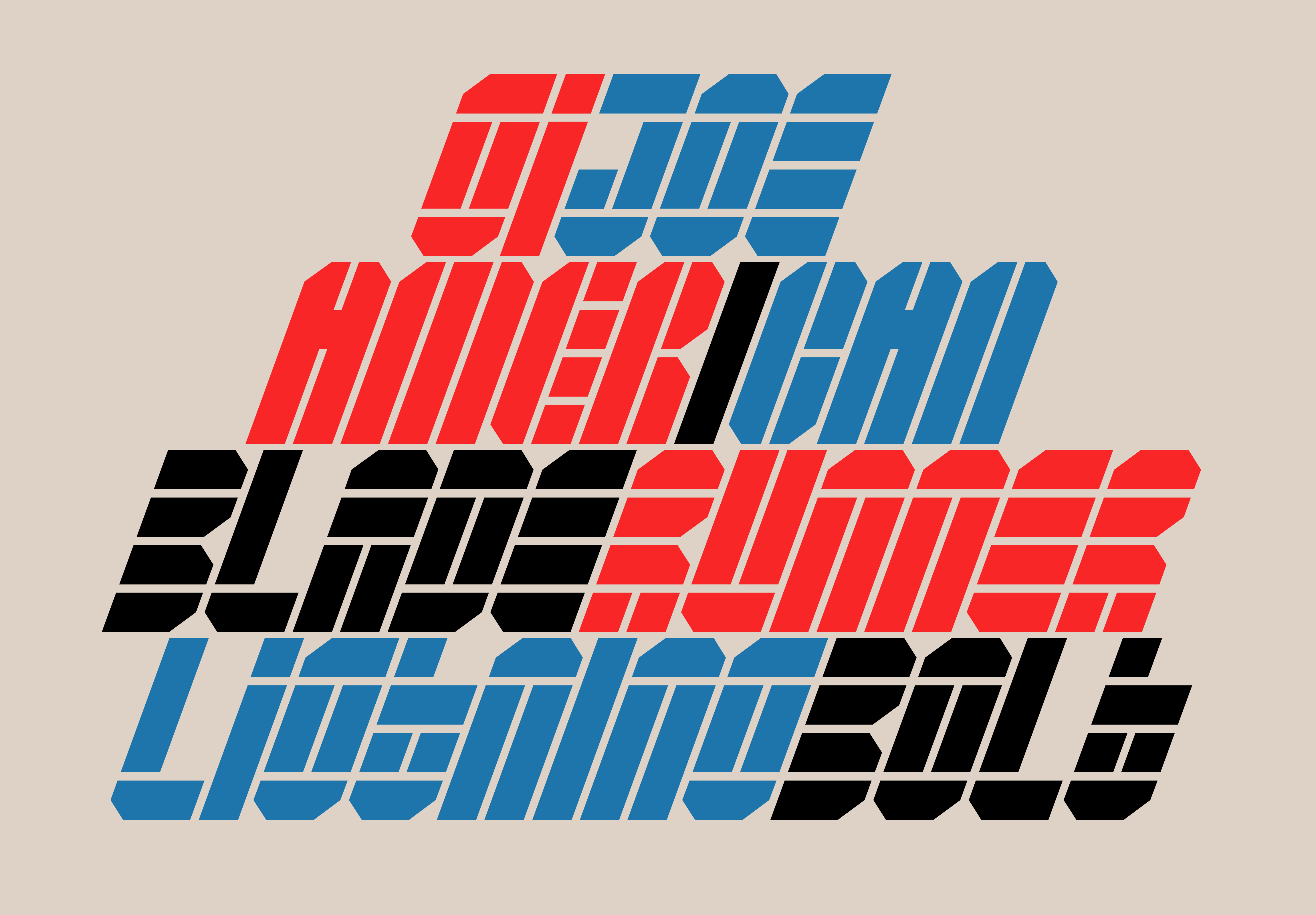
Name: Texel
Designer: Simon Bent/studio-io
Foundry: Metis Foundry
Release Date: December 2018
Back Story: Texel began life in Melbourne’s studio-io as a branding concept inspired by the solid forms of Brutalist buildings. This architectural vernacular came into being just after WWII and was seen by some as an honest, plainspoken style and by others as an offense to aesthetic sensibilities—hulking structures formed from raw slabs of cold concrete are not everyone’s cup of tea. The term Brutalism was coined by the British architectural critic Reyner Banham and originates from modernist architect Le Corbusier’s use of ‘beton brut’—raw concrete in French. Bent’s typographic exploration of harsh and unforgiving geometry resulted in a severely gridded, heavy-as-cement font that makes no excuses for its rough character.
Why’s it called Texel? The research for the initial branding project included visual investigations into various military fortifications. The low, squat structure of Battery Den Hoorn, a WWII observation bunker on Texel (an island off the Dutch coastline), stuck in Bent’s imagination and led to an ideal name for the typeface. Random fun fact: the island of Texel is also famous in military history as the only place where a navy was defeated on horseback, in 1795.
What are its distinguishing characteristics? “Texel is a condensed display typeface that embraces ruggedness and rejects the need to be comfortable,” says Bent. Its narrow letterforms are angular, heavy, and utilitarian. One iteration of the stencil version features only vertical cuts, and the other uses only horizontal cuts. All of its internal counters are linear, right angles, or dots, lending a Morse code feeling of urgency. Terminals and corners are cut straight across or at a severe 45 degrees. When set as a dense block of large-scale text, Texel morphs into shapes and patterns and move away from readability, forging a kinship with Mid-Century modernist type experiments using pure geometric forms such as Lustig Elements (first sketched out as just a few characters in 1930, finally produced in 2016).
What should I use it for? Texel should be deployed for headings, breakout quotes, and general display purposes. Repeating, rotating, and stacking characters generates some interesting graphic borders and frames that would pair nicely with clean formal typesetting. Let the brute into the studio!
What other typefaces do you like to pair it with? “Because of its weightiness, Texel should be paired with something far lighter and easier on the eye,” Bent says. Theinheardt and GT Zirkon are good options.